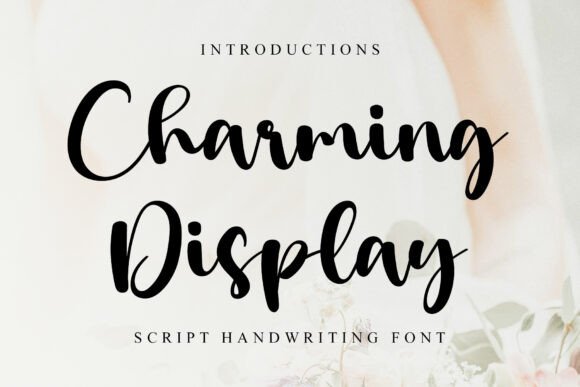
Introducing Charming Display Font: Elevate Your Designs with Elegance
In the world of typography, a charming display font can make all the difference in capturing the essence of a brand or creative project. If you’re on the hunt for a font that exudes elegance and sophistication, look no further than Charming Display. This magical handwritten font is carefully crafted to add a touch of luxury to your designs, making it perfect for a wide range of applications, from Instagram posts to DIY projects.
The Story Behind Charming Display Font
Charming Display is more than just a font – it’s a carefully curated collection of characters designed to evoke a sense of whimsy and refinement. The creators of this font understand the importance of typography in design and have poured their hearts into crafting a unique and captivating script. With Charming Display, you can add a personal touch to your designs and make them stand out from the crowd.
Key Features of Charming Display Font
- Handwritten Elegance: Charming Display boasts a beautiful, handwritten aesthetic that adds a touch of sophistication to any design.
- Magical Flair: The font’s unique character set and flowing lines evoke a sense of magic and wonder, making it perfect for creative projects.
- Versatile: Whether you’re designing for Instagram, creating calligraphy scripts for DIY projects, or crafting marketing materials, Charming Display is the perfect choice.
- Ease of Use: This font is easy to read and works beautifully in a variety of contexts, from digital media to print materials.
Why Choose Charming Display Font?
With so many fonts available, why choose Charming Display? Here are just a few reasons why this font stands out:
- Uniqueness: Charming Display offers a distinctive look that sets it apart from more traditional fonts.
- Elegance: The font’s elegant lines and flowing script make it perfect for designs that require a touch of sophistication.
- Creativity: With Charming Display, you can unleash your creativity and produce stunning designs that capture the imagination.
Using Charming Display Font for Instagram
In today’s digital age, Instagram has become an essential platform for creatives, businesses, and influencers. With Charming Display, you can elevate your Instagram game and create stunning posts that grab attention. Here are some ideas for using Charming Display on Instagram:
- Quotes and Captions: Add a touch of elegance to your quotes and captions with Charming Display.
- Instagram Stories: Use the font to create eye-catching stories that engage your audience.
- Branding: Incorporate Charming Display into your Instagram branding to create a consistent and recognizable visual identity.
Charming Display Font for DIY Projects
If you’re a DIY enthusiast, you’ll love the creative possibilities that Charming Display offers. Here are some ideas for using the font in your DIY projects:
- Calligraphy: Use Charming Display as a guide for creating beautiful calligraphy pieces.
- Sign-Making: Add a touch of elegance to your signs and banners with Charming Display.
- Card-Making: Create stunning greeting cards and invitations with this beautiful font.
Tips for Getting the Most Out of Charming Display Font
To maximize the impact of Charming Display, here are some tips to keep in mind:
- Experiment with Colors: Play around with different colors to find the perfect combination that complements your design.
- Mix and Match: Combine Charming Display with other fonts to create a unique visual identity.
- Pay Attention to Spacing: Make sure to adjust the spacing between letters to achieve a balanced look.
Charming Display Font is a game-changer for anyone looking to add a touch of elegance to their designs. With its magical handwritten aesthetic, versatility, and ease of use, this font is perfect for a wide range of applications. Whether you’re a designer, DIY enthusiast, or social media influencer, Charming Display is sure to become your go-to font for creating stunning designs that capture the imagination.
Get Ready to Transform Your Designs with Charming Display Font